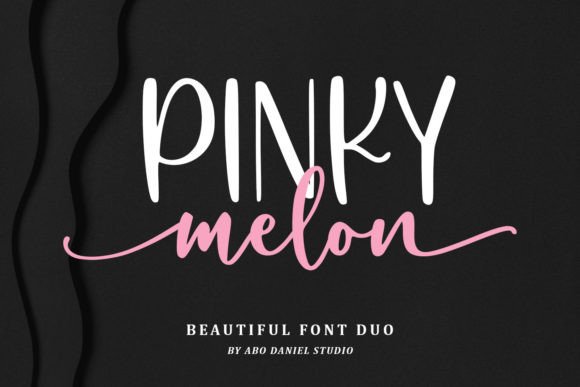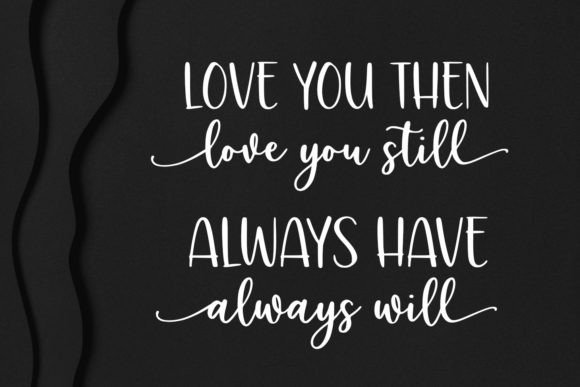
Pinky Melon Font
Pinky Melon is a beautiful font pairing of a handwritten script and a sleek sans-serif. Together, they create a harmonious balance of sophistication and simplicity. Perfect for wedding invitations, high-end branding, and more, this font duo adds a touch of elegance to your designs. This font is PUA encoded which means you can access all glyphs and swashes with ease!